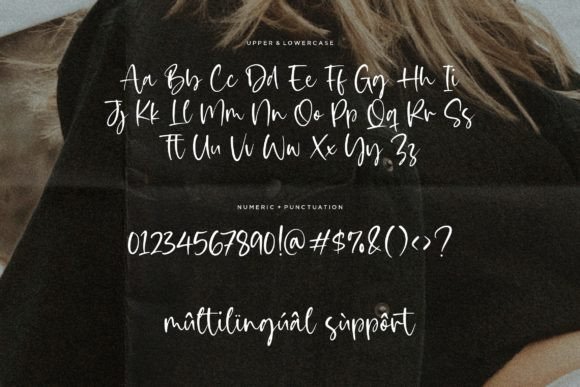
Introduction to Girlmind Font
Have you ever sat down with a blank sheet of paper, a cup of coffee, and a spark of creativity, only to watch your imagination come to life with a beautiful handwritten font? That’s exactly what happened to many designers when they discovered the Girlmind Font. This modern handwritten font has taken the design world by storm, and for good reason.
Whether you’re working on a high-quality craft project, a creative presentation, or a digital design, the Girlmind Font is a valuable design resource that can elevate your work to the next level. With its unique, cursive style and transparent background, this font is perfect for designers who want to add a personal touch to their projects. And the best part? It’s available for free download, making it an accessible resource for designers of all levels.
Key Features of Girlmind Font
- High-quality design resource ideal for creative projects, including digital art and graphic designs.
- Unique, elegant font style with a transparent background, allowing for versatility in design applications.
- Suitable for a wide range of design projects, from branding and marketing materials to digital art and creative expressions.
Honest Review: Girlmind Font
As a designer, I’m always on the lookout for high-quality design resources that can elevate my creative projects. Recently, I stumbled upon the Girlmind Font, and I’m excited to share my honest review.
- ✨ The font’s playful, cursive style is perfect for projects that require a touch of whimsy and charm.
- ✨ The transparent background option is a huge plus, making it easy to layer the font over different backgrounds and images.
- ⚠️ The font may not be suitable for projects that require a more formal or serious tone.
Overall, I’m impressed with the Girlmind Font’s unique style and versatility. While it may have some limitations, it’s a great addition to any designer’s toolkit. If you’re looking for a high-quality, free design resource, the Girlmind Font is definitely worth checking out.
The Girlmind Font is suitable for various design projects, including social media graphics, blog posts, and presentations. Its high-quality design and transparent background make it a versatile design resource for your creative projects.
Alternatives to Girlmind Font
Lato is a high-quality, sans-serif font suitable for creative projects requiring a modern and elegant look. It’s ideal for use in logos, headings, and body text. When to use: Lato is perfect for clean and minimalist designs, especially those with a transparent background. It’s available for free download and is a great design resource for designers.
Comparison to Girlmind Font: Lato has a more neutral and straightforward appearance compared to Girlmind Font’s playful and whimsical style. Lato is ideal for projects where a sophisticated and professional look is desired.
Montserrat is a geometric sans-serif font ideal for creative projects requiring a bold and modern look. It’s perfect for use in headings, titles, and body text. When to use: Montserrat is suitable for designs that require a strong and edgy feel, especially those with a transparent background. It’s available for free download and is a valuable design resource for designers.